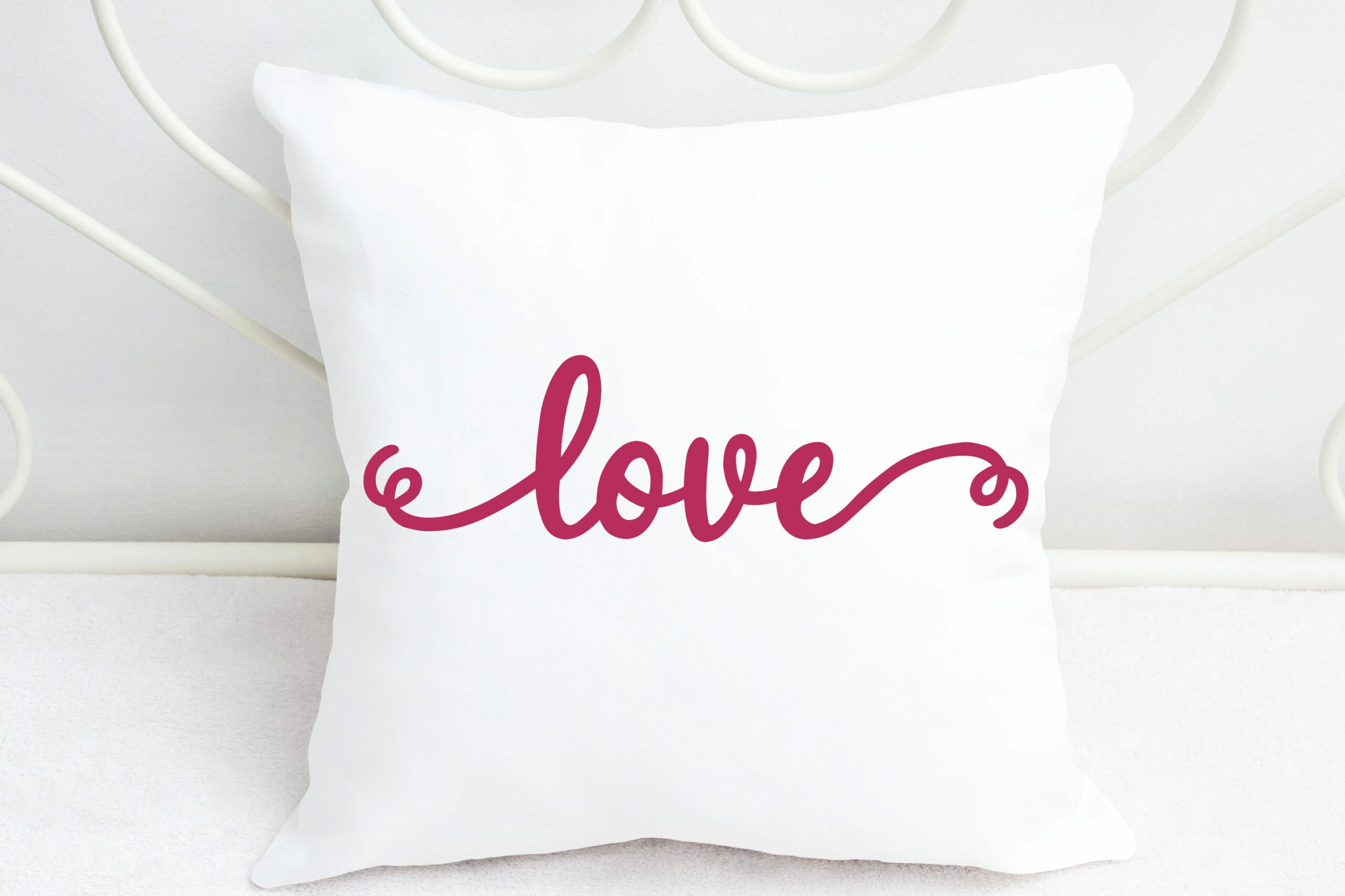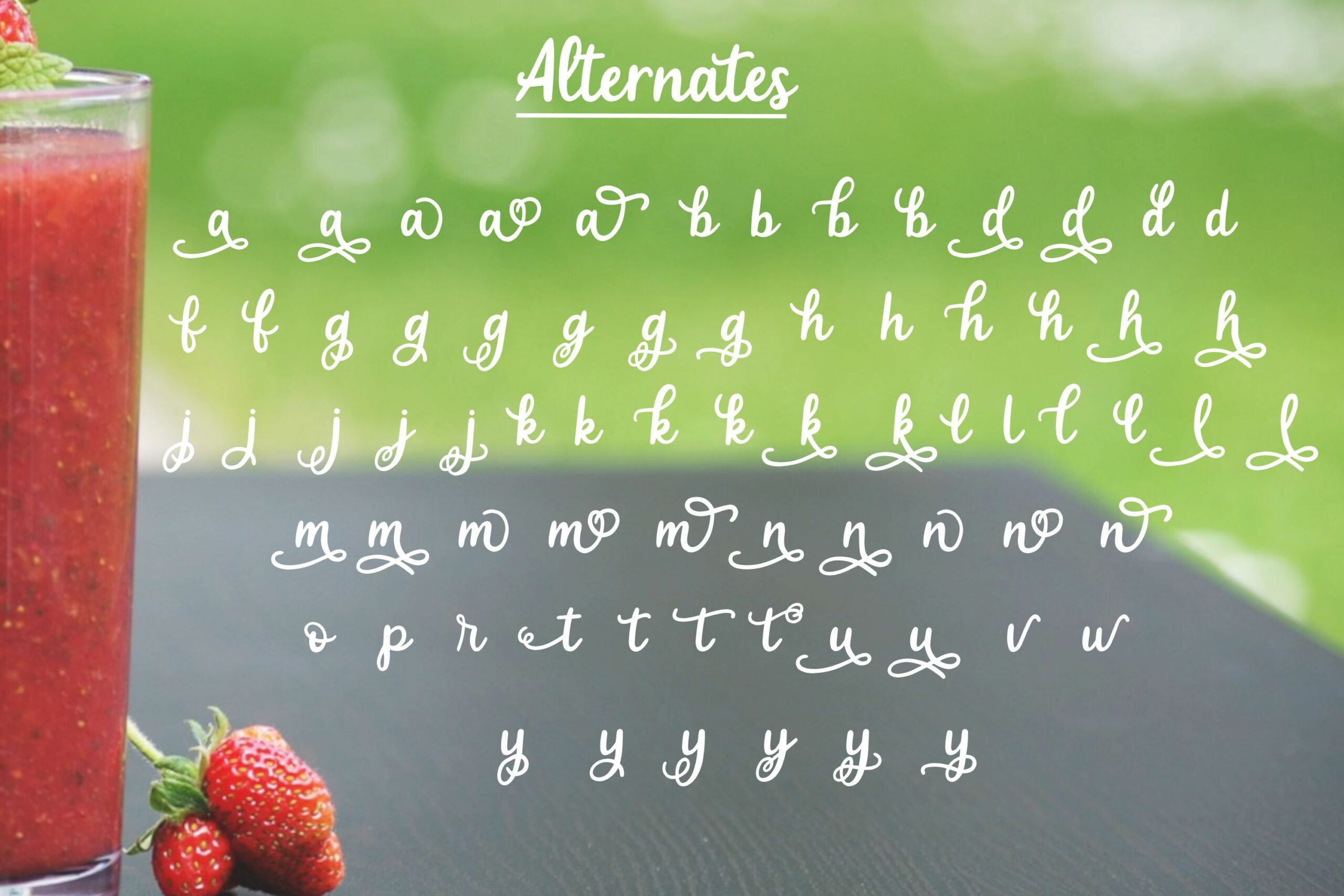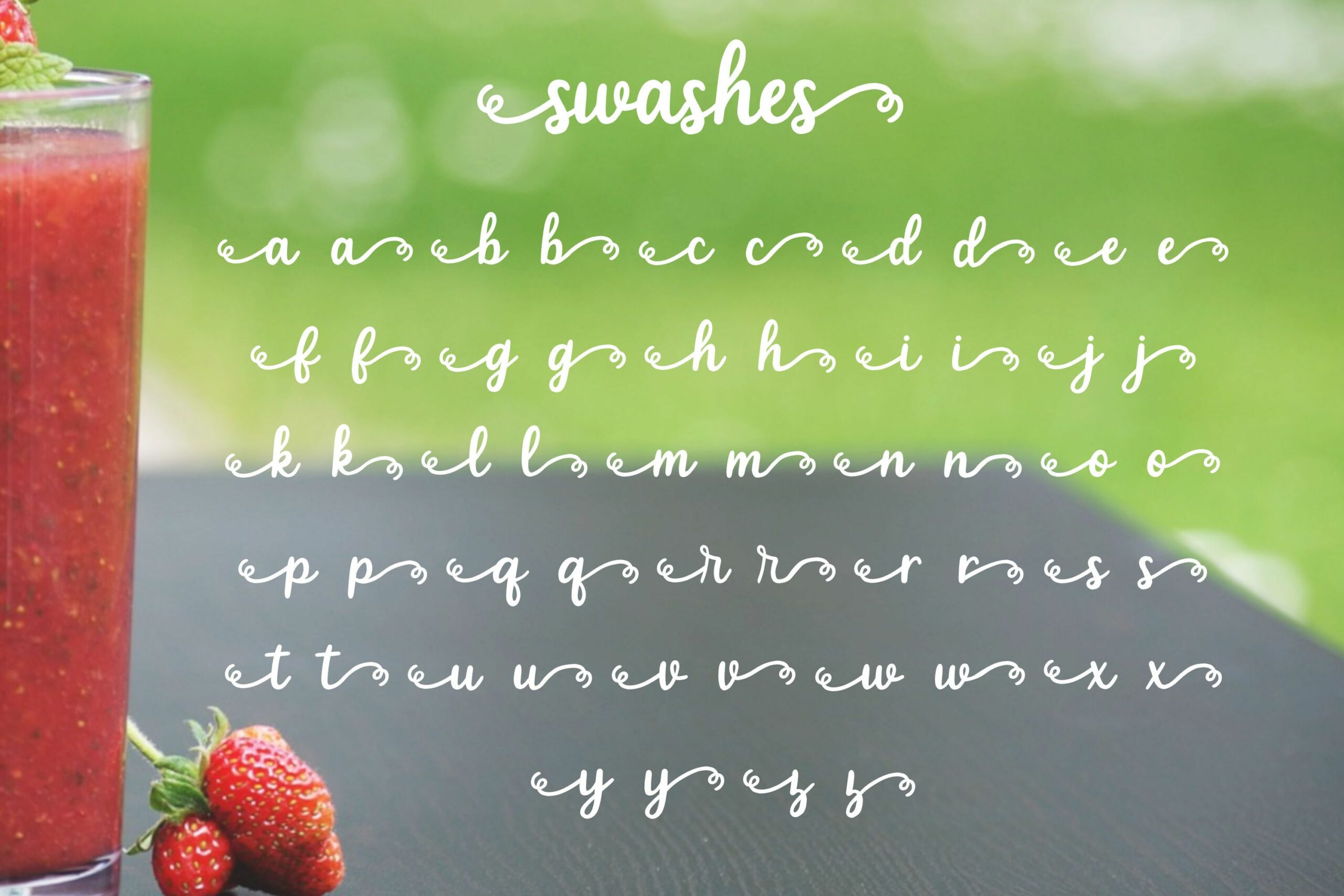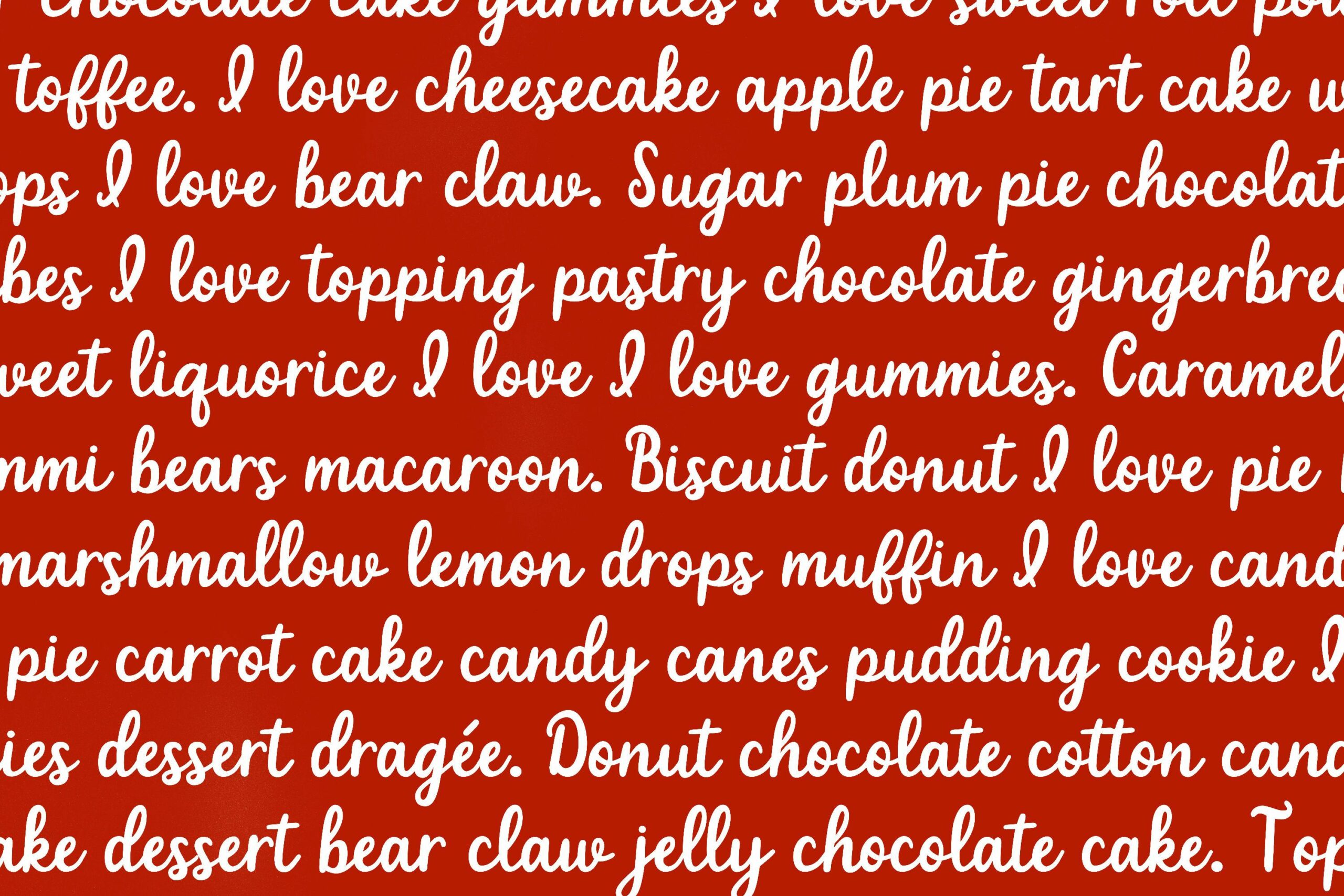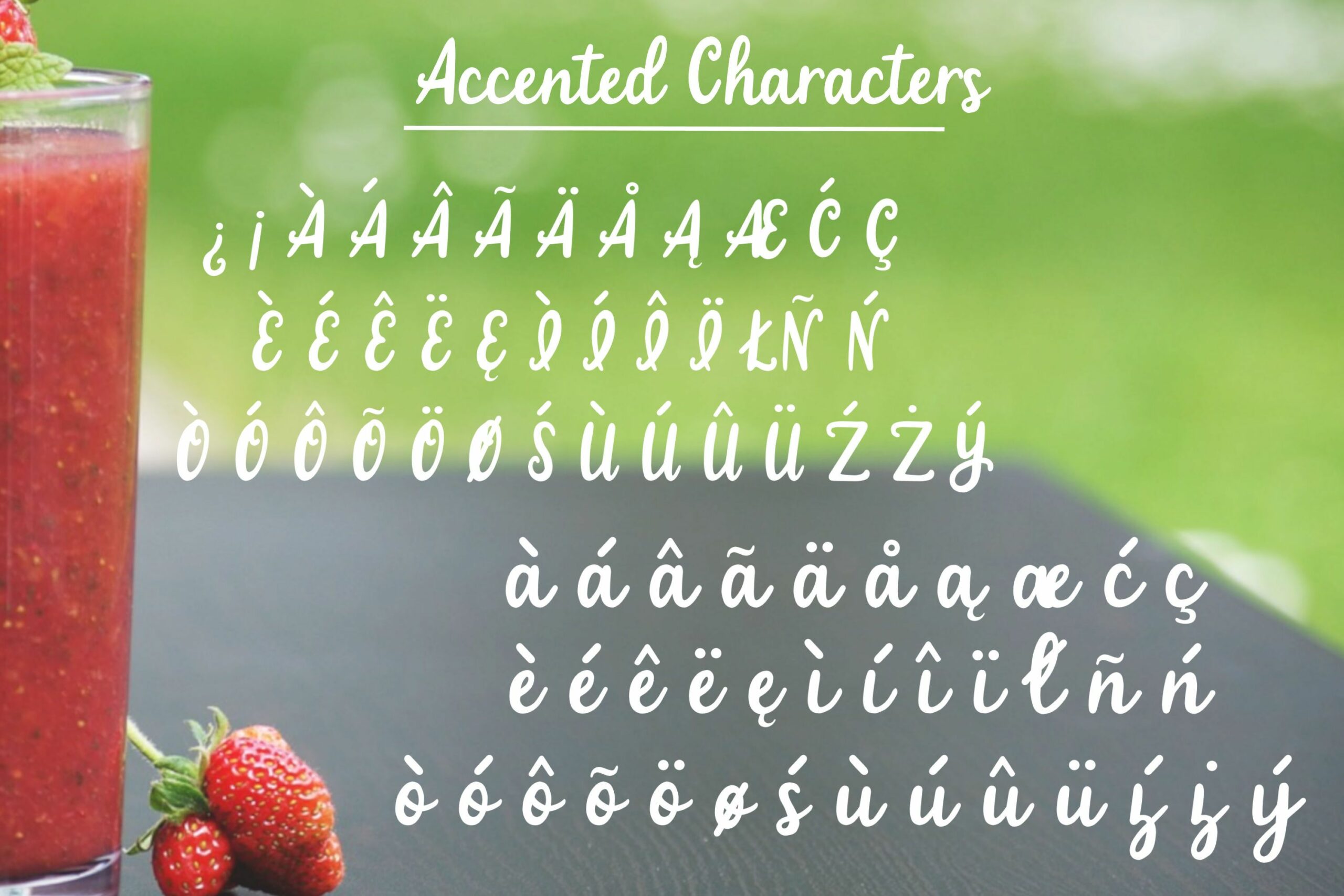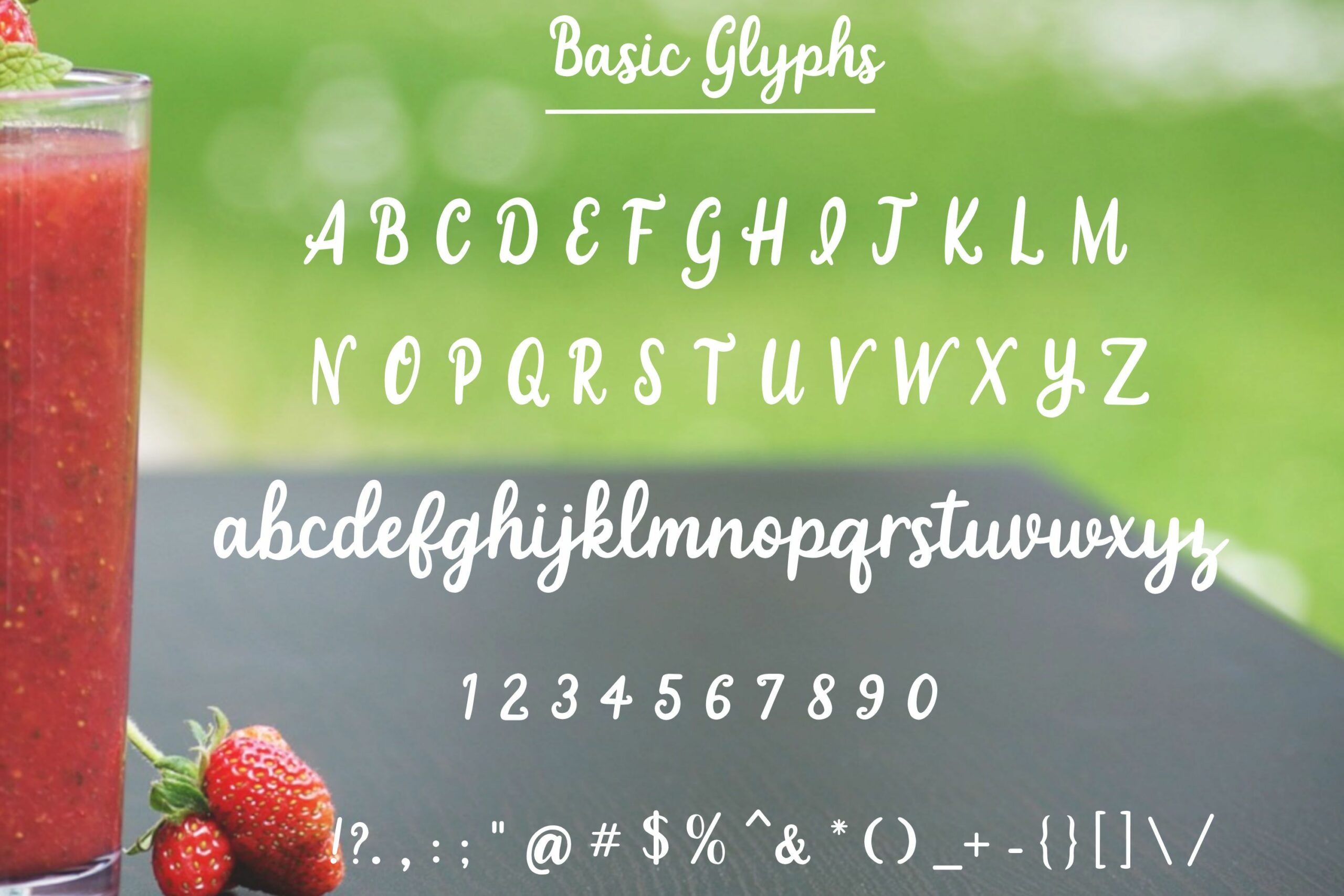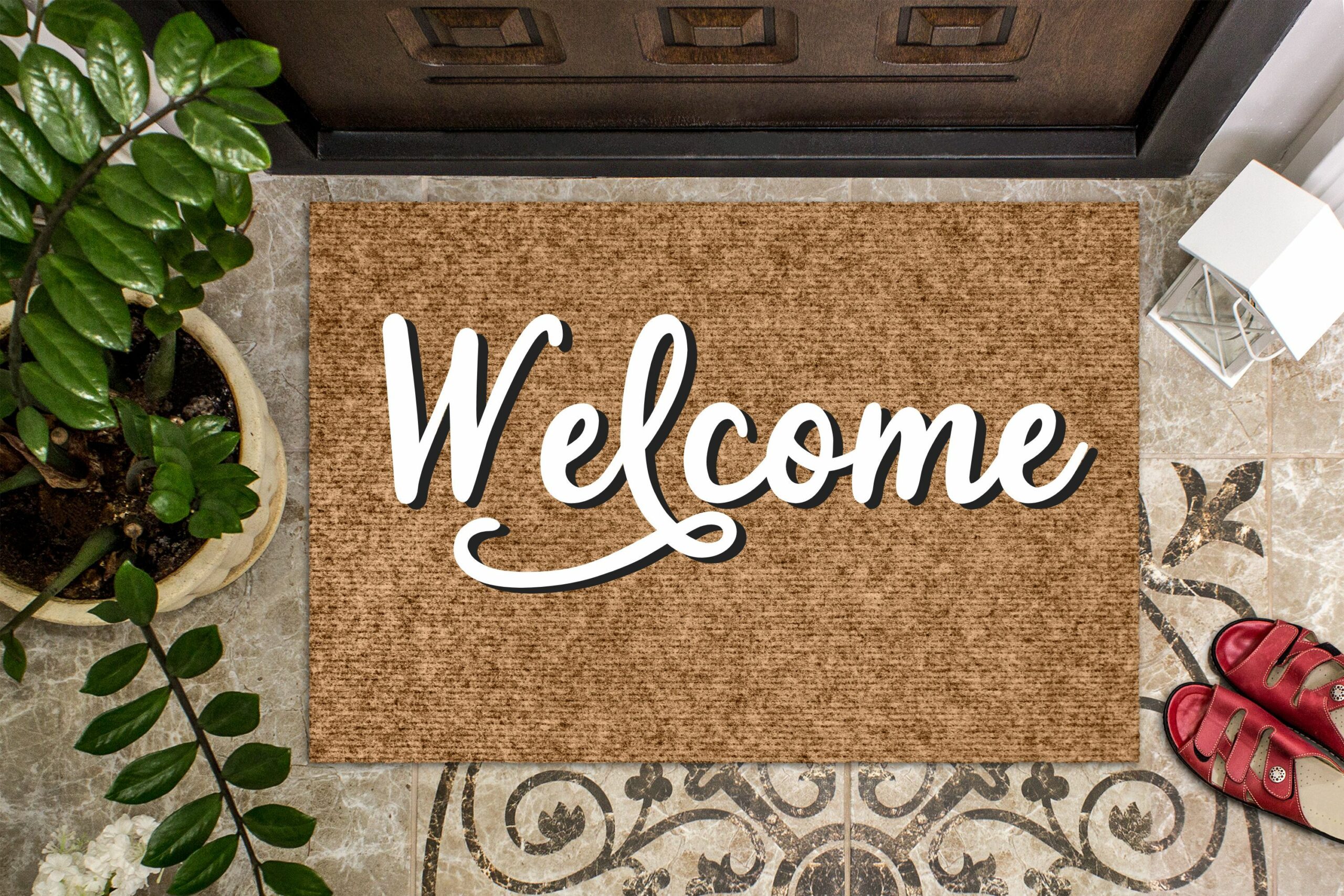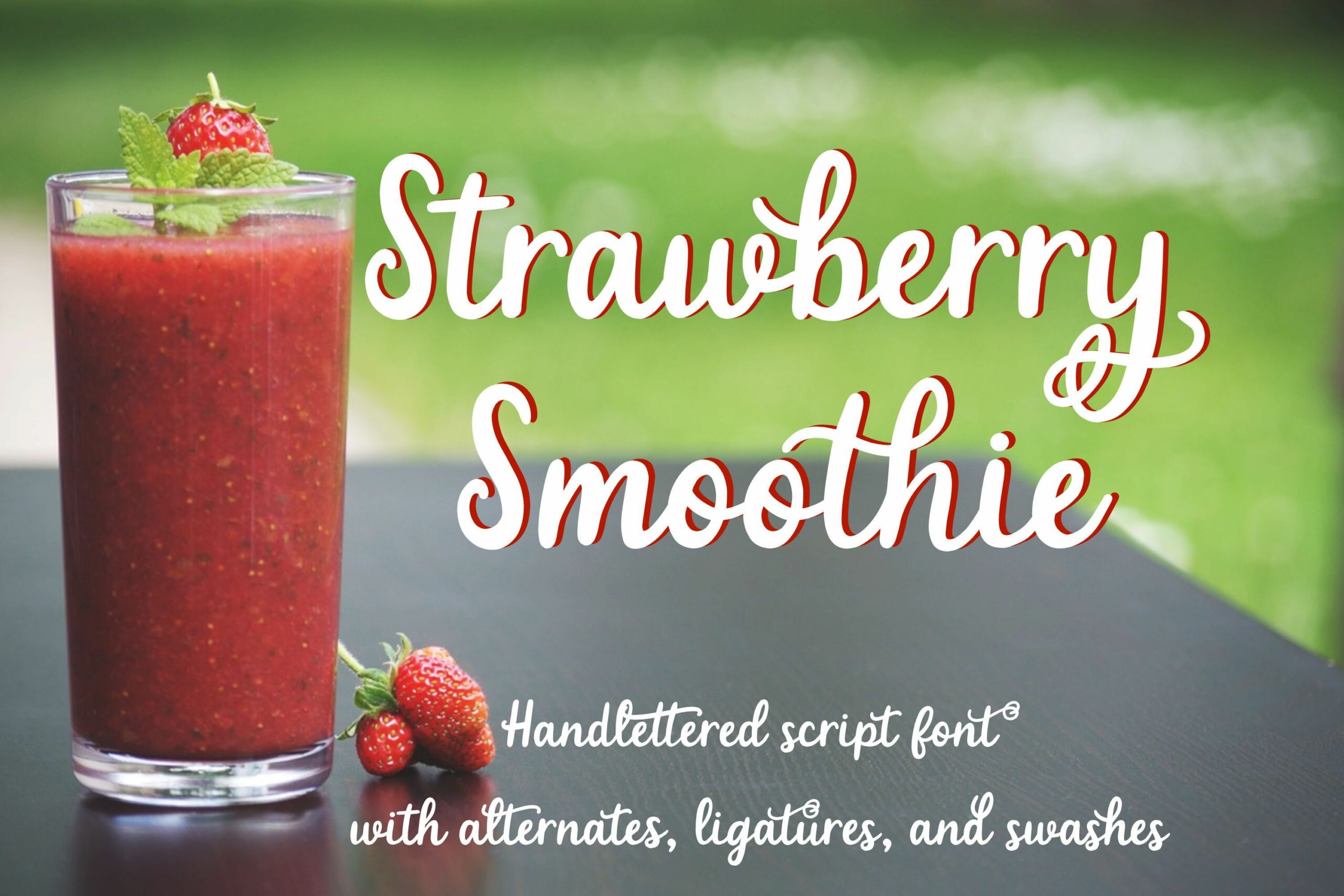
Strawberry Smoothie – A handlettered script font
About Strawberry Smoothie – A handlettered script font
Strawberry Smoothie is a hand lettered  script font that includes… – Capital letters A-Z – Lowercase letters a-z – Accented characters – Over 70 lowercase alternates – Beginning and ending swashes for all lowercase letters – Ligatures – Numbers 0-9 – Punctuation Strawberry Smoothie is perfect for SVG designs!!! It’s a thicker script font that was designed to cut smoothly on vinyl cutting machines while offering versatility with all of the extras included.  Strawberry Smoothie is also great for cards, invitations, scrapbooking, and more! This font can be used for personal or commercial projects. File Type: otf